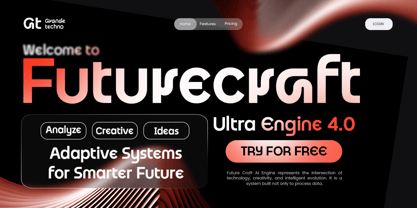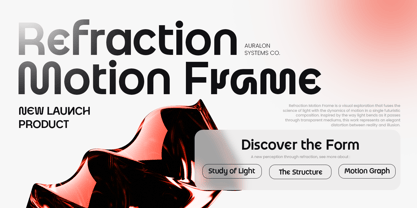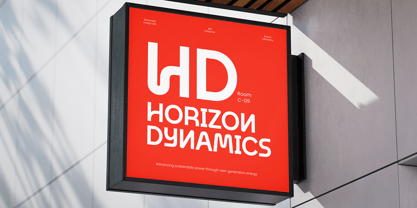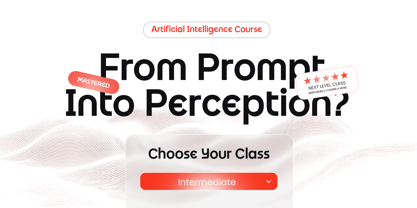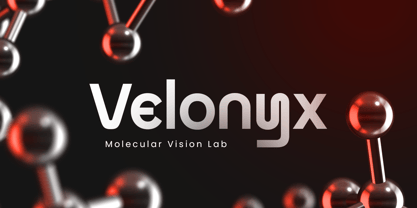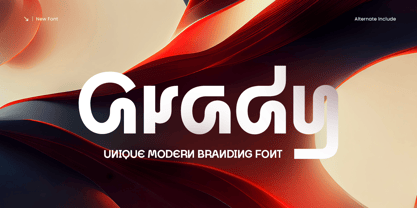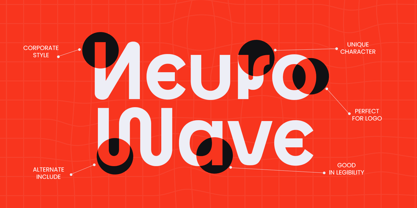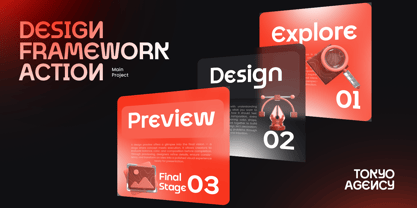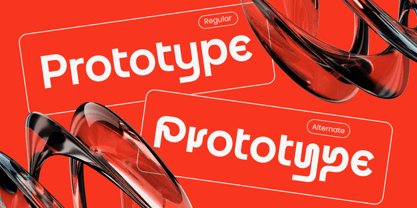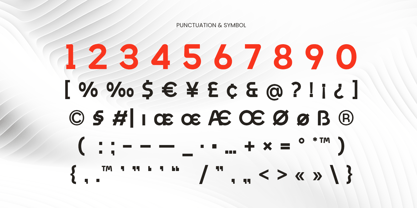
Grady is a unique modern branding font designed to make your visuals feel fresh, confident, and instantly recognizable. With clean construction and subtle personality in every curve and corner, this typeface delivers a contemporary look that stands out while staying polished and professional.
Built for brand identity work, Grady is perfect for logos, logotypes, packaging, website headers, social media campaigns, and editorial headlines. Its modern vibe fits creative studios, startups, lifestyle brands, and product-based businesses that need typography with clarity and character.
Whether you’re crafting a minimalist logo or a bold headline system, Grady brings a distinctive modern presence that helps your brand feel consistent, premium, and memorable across both digital and print use.
Grady – Modern Branding Font Features
Unique modern letterforms with strong branding character
Ideal for logos, brand identity, and stylish logotypes
Clean readability for headlines, web, and social media design
Great for packaging, posters, signage, and editorial layouts
Includes uppercase, lowercase, numerals, and punctuation
Optimized for both print production and digital screens
OpenType features for flexible, professional typography